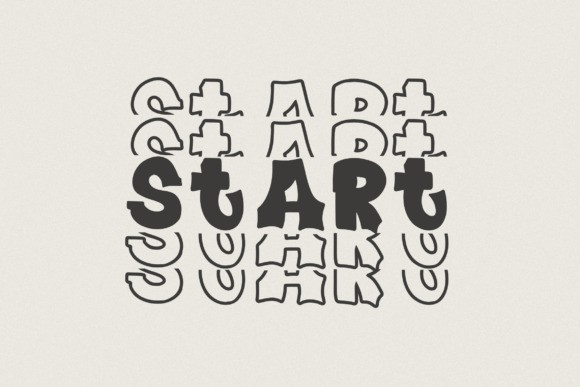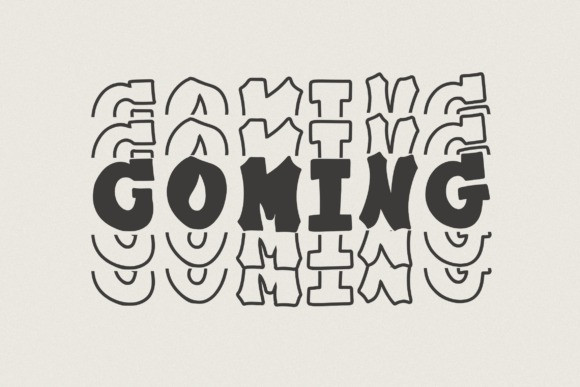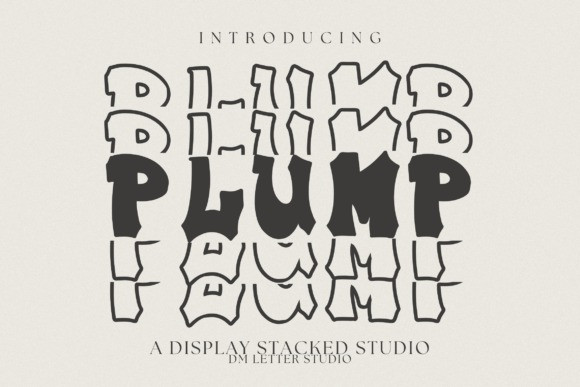
Plump Stacked Font
Plump Stacked Font delivers bold, bubbly letters designed to stack neatly in tight spaces. Rounded shapes feel friendly and high-impact, while even spacing keeps words clear on posters, shirts, stickers, banners, and social posts. Use it for headline tees, sticker packs, candy labels, kids’ party décor, thumbnails, and storefront signs. Because counters stay open and lines align cleanly, your layouts build fast and read great at any size.
Why creators love this stacked font
First, it saves space without losing volume. Next, it cuts cleanly for Cricut, Silhouette, and laser projects. Then it layers beautifully with outline and shadow passes, so two-color effects come together in minutes. As a result, one type style can power a full product drop across apparel, printables, and digital assets.
Ready for merch, labels, and posts
Creative ways to use Plump Stacked
Build stackable phrases such as “GOOD VIBES,” “CANDY TIME,” or “GAME DAY.”
Add a thick offset or inner fill to create instant bubble-letter depth.
Use bright duos like melon with cream, aqua with coral, or grape with lime for eye-catching palettes.
Design tips for crisp stacks
Keep headlines short and chunky. Tighten line spacing to emphasize the stacked look. Increase tracking slightly on all-caps words.